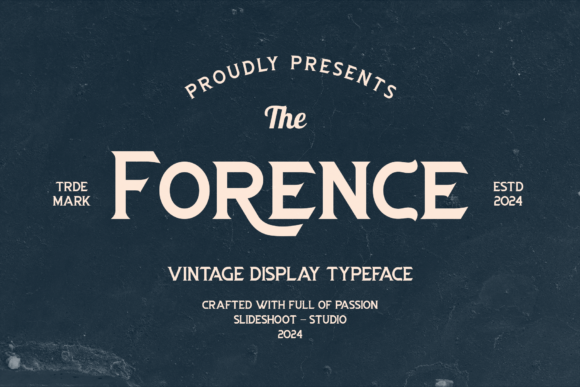
Introducing Forence Font: A Timeless Vintage Serif Font with a Modern Twist
In the world of typography, fonts play a crucial role in conveying the tone and personality of a brand or design. For those seeking a vintage aesthetic with a modern touch, Forence Font is an excellent choice. This beautifully crafted serif font is designed to evoke the charm of classic typography while incorporating stylish alternations and ligatures that make it perfect for a wide range of projects.
The Characteristics of Forence Font
Forence Font is a vintage serif font that boasts a unique blend of classic and modern elements. Its carefully crafted design combines the elegance of traditional typography with a fresh, contemporary feel. The font features:
- Alternate Characters: Forence Font comes with a wide range of alternate characters, allowing designers to add a touch of uniqueness to their work.
- Ligatures: The font includes stylish ligatures that enable designers to create beautiful, flowing text.
- Serif Design: The serif design of Forence Font adds a touch of sophistication and elegance to any project.
- Vintage Aesthetic: The font’s vintage aesthetic makes it perfect for designs that require a classic, timeless feel.
Perfect for a Wide Range of Projects
Forence Font is an incredibly versatile font that can be used for a variety of projects, including:
- Logos: The font’s unique blend of classic and modern elements makes it perfect for creating eye-catching logos.
- Branding: Forence Font can be used to create a cohesive brand identity that exudes elegance and sophistication.
- Advertising: The font’s stylish alternations and ligatures make it ideal for creating eye-catching advertisements.
- Packaging: Forence Font can be used to create beautiful, eye-catching packaging designs.
- Web Design: The font’s clean and elegant design makes it perfect for use in web design.
The Benefits of Using Forence Font
Using Forence Font in your designs offers a range of benefits, including:
- Unique and Eye-Catching Designs: The font’s alternate characters and ligatures enable designers to create unique and eye-catching designs.
- Timeless Aesthetic: Forence Font’s vintage aesthetic ensures that your designs will remain timeless and stylish for years to come.
- Versatility: The font’s versatility makes it perfect for use in a wide range of projects.
- Elegance and Sophistication: Forence Font adds a touch of elegance and sophistication to any design.
Tips for Using Forence Font
To get the most out of Forence Font, follow these tips:
- Experiment with Alternate Characters: Take advantage of the font’s alternate characters to add a touch of uniqueness to your designs.
- Use Ligatures: Use the font’s ligatures to create beautiful, flowing text.
- Mix and Match: Experiment with different font sizes and styles to create visually appealing designs.
- Keep it Simple: Don’t be afraid to keep your designs simple and elegant.
Forence Font is a beautiful, vintage serif font that combines the charm of classic typography with a modern touch. Its unique blend of elegant and sophisticated design elements makes it perfect for a wide range of projects, from logos and branding to advertising and packaging. With its alternate characters, ligatures, and timeless aesthetic, Forence Font is an excellent choice for designers seeking to create eye-catching and stylish designs.